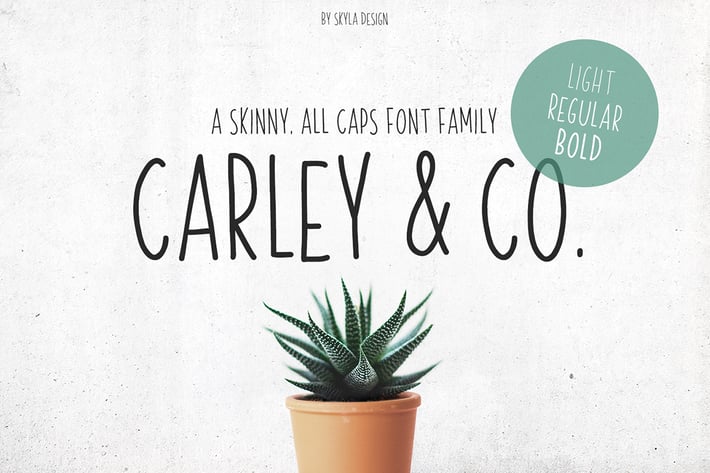
Skinny Font family Carley & Co.
Carley & Co. is a skinny, all caps font family that comes in a Light, Regular & Bold version. This condensed sans-serif will look so fun on your cards & invites, and it works perfectly when pairing with other fonts.